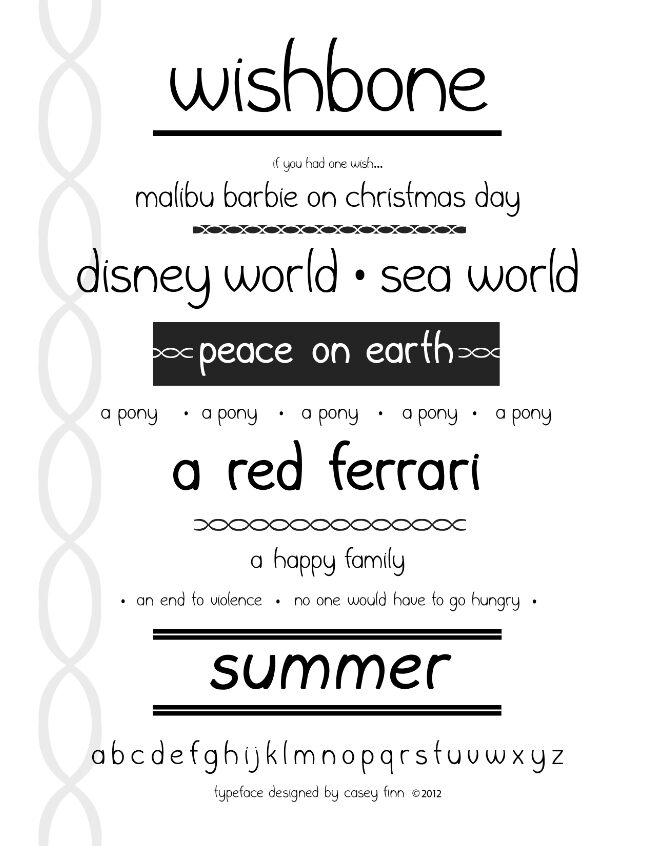
Wishbone by Casey R. Finn is a free decorative display font whose slender, rounded letters are distinguished by sweeping curves, gentle asymmetry, exceptionally tall upper strokes, and softly changing line weights. The exaggerated height is its clearest signature.
A contemporary fashion or beauty brand could use its spare, flowing forms across premium product packaging, seasonal campaign graphics, and a memorable logo for an unusual but approachable identity. Music posters and editorial covers also suit this gently irregular drawing style, giving younger audiences lettering that feels informal, personal, and carefully composed.